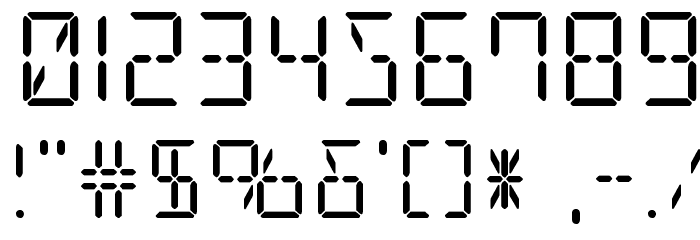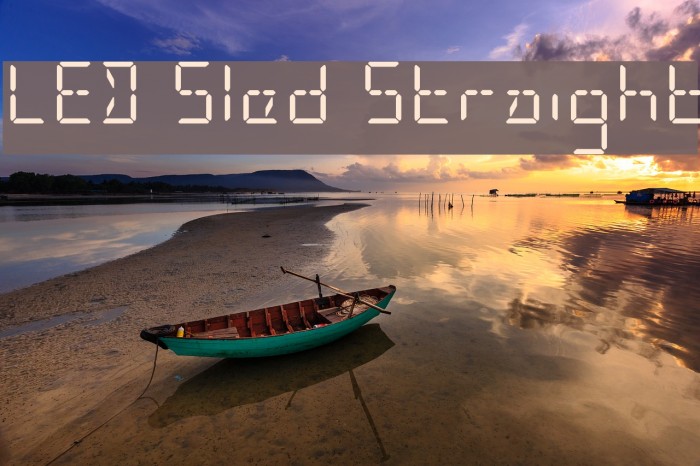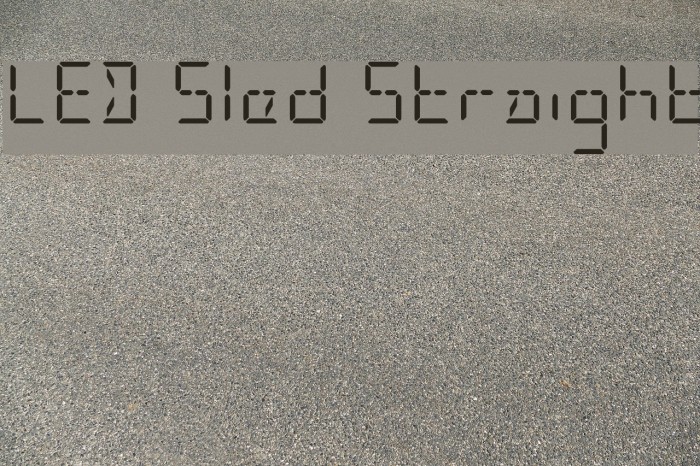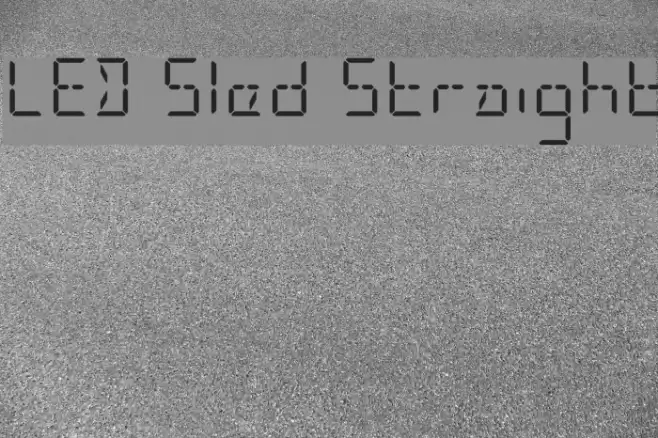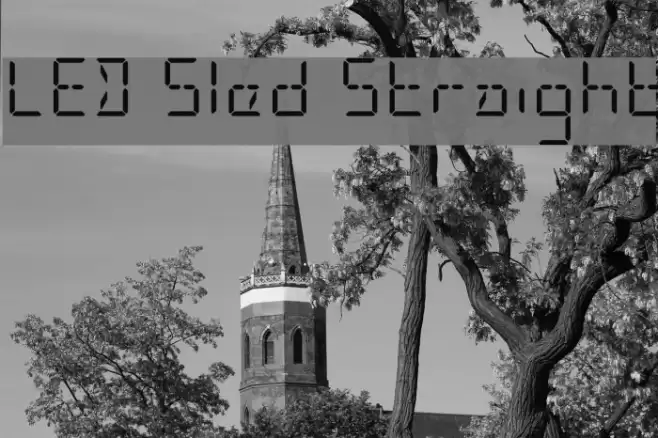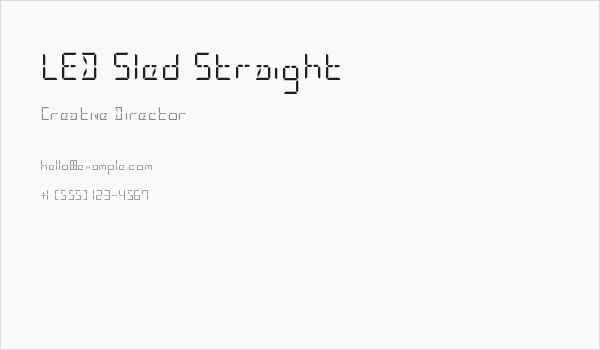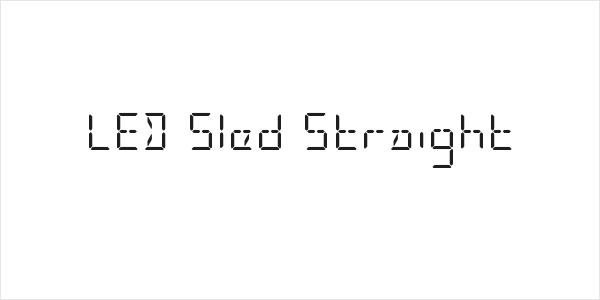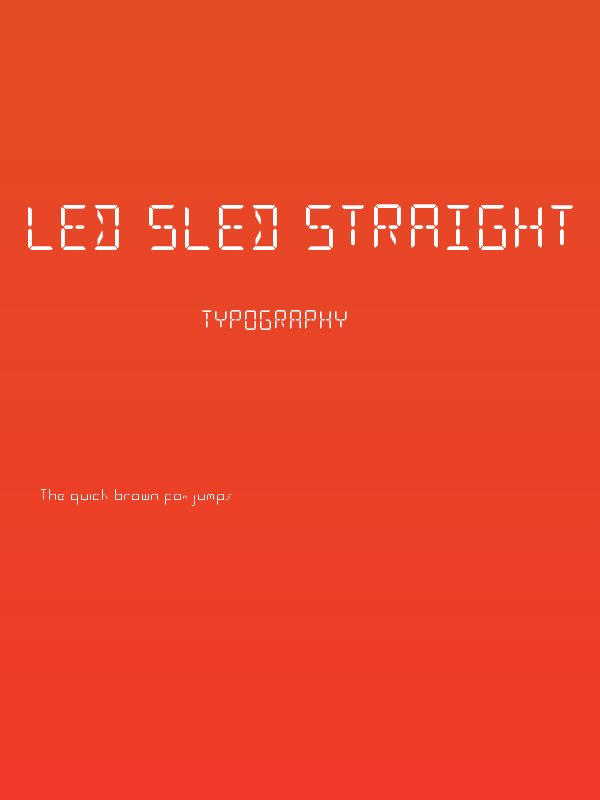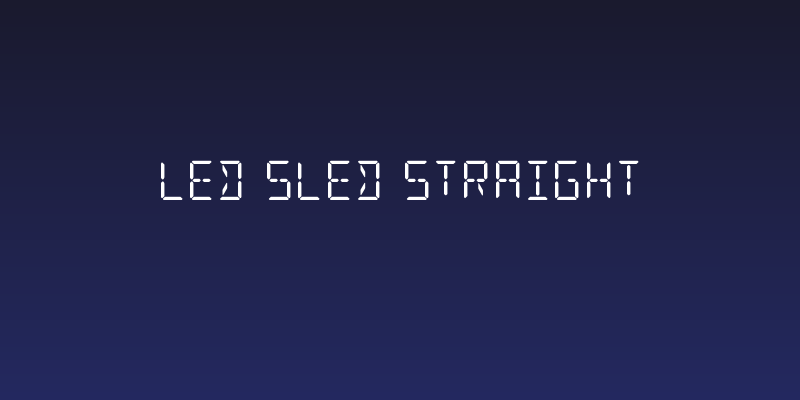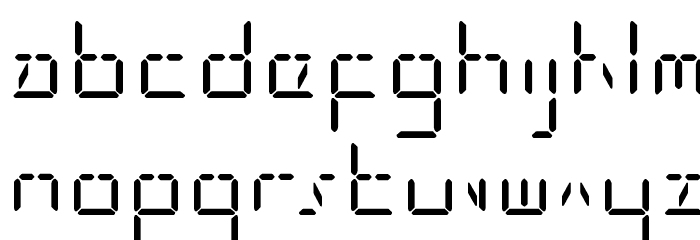
LED Sled Straight Font
LED Sled Straight Description
This font features a distinct digital aesthetic reminiscent of LED displays. Each character is composed of segmented lines, creating a geometric and futuristic appearance. The uppercase and lowercase letters maintain a consistent style, with angular forms and a uniform stroke width. Numbers and special characters follow the same segmented pattern, ensuring a cohesive look across all glyphs. The font's design is clean and minimalistic, making it suitable for digital-themed projects or any context where a modern, tech-inspired look is desired.